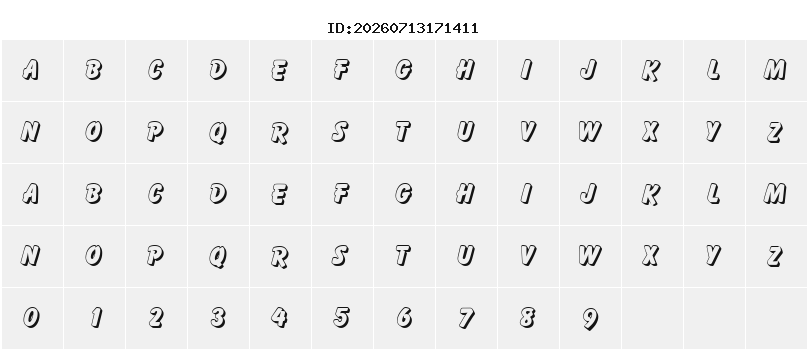
BalloonDroShaD Preview
• Font Name: BalloonDroShaD
• Full Font Name: BalloonDroShaD
• PostScript Name: BalloonDroShaD
About BalloonDroShaD.ttf
BalloonDroShaD.ttf is a modern, elegant sans-serif font designed for ultimate readability and visual harmony. Perfect for branding, headlines, web design, and print materials.